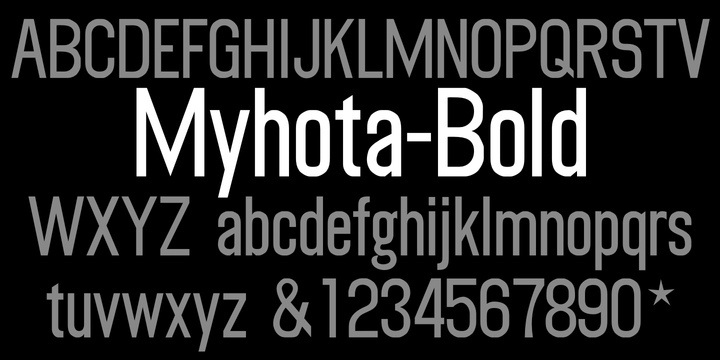
Myhota Font
Myhota Font is perfect for personal wellness branding, self-care product packaging, mindfulness app interfaces, individual coaching services, personal development materials, meditation retreat marketing, holistic health communications, and wellness journey publications where personal transformation and individual growth are emphasized.
What makes Myhota Font so exciting is its intimate ability to convey personal wellness and individual transformation through gentle letterforms that embody the journey of self-discovery and mindful living while maintaining excellent readability for personal development communications. The nurturing character design reflects the compassionate support and individual attention that defines authentic wellness practices and personal growth experiences.
The Myhota Font family includes thin, light, regular, medium, and bold weights, with wellness-inspired script variants and personal growth ornamental elements that provide comprehensive tools for creating authentic self-care branding and individual wellness design systems.
This healing typeface captures the essence of personal transformation, combining wellness tradition with contemporary self-care industry requirements. The Myhota Font Free Download gives wellness practitioners access to typography that communicates personal healing and individual empowerment.
The font's gentle character flow and supportive proportions create immediate associations with personal wellness practices and individual healing journeys. Each letterform has been designed to evoke the care and attention that defines quality wellness services and meaningful personal development experiences.
Myhota Font excels in creating compassionate communications that support personal growth and encourage individual wellness journeys. The typeface's nurturing character makes it ideal for wellness coaches, holistic practitioners, and self-care brands targeting individuals seeking authentic personal transformation and mindful living.
From yoga studios to personal coaching practices, this font brings wellness authenticity that resonates with individuals committed to personal growth and self-care practices. The versatile design maintains its healing character across both traditional wellness materials and modern digital self-care platforms.
Nurture personal transformation with caring typography using Myhota Font Free Download and discover how wellness-inspired fonts can enhance your self-care brand's compassionate voice and healing appeal among individuals seeking authentic personal growth.